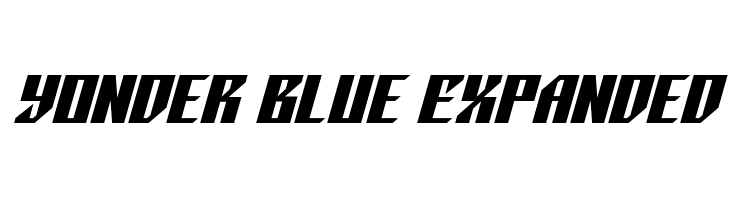
A bold, 3D italic font with outlined characters for a dynamic look.
A bold, italicized font with a dynamic gradient effect and horizontal lines.
A bold, italicized font with a halftone effect, perfect for dynamic and modern designs.
A bold, condensed, and italicized font with strong visual impact.
A bold, expanded typeface with thick, blocky letters for impactful headlines.
Bold, condensed, semi-italic font with a strong, impactful design.
A bold, left-italicized font with strong, impactful strokes.
A bold, two-tone font with a modern, dimensional style.
A bold, geometric font with a strong, industrial aesthetic.
A bold, italic font with a dynamic and aggressive style.